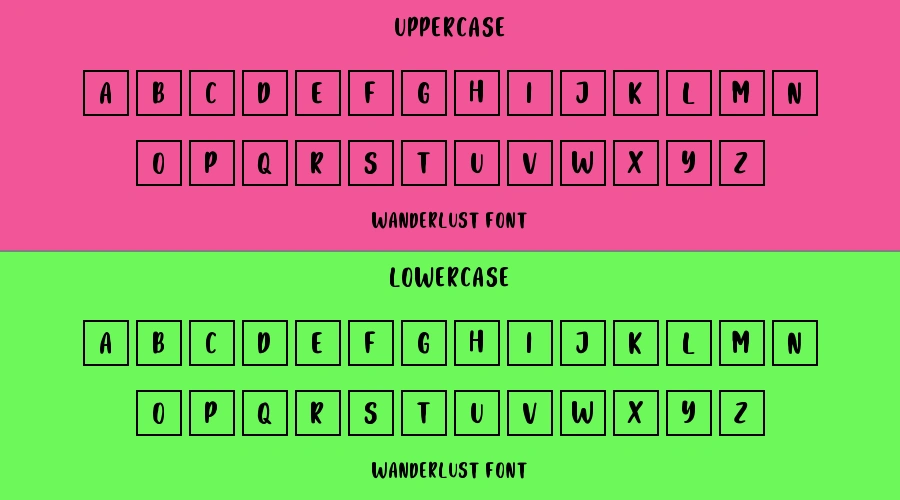
About Wanderlust Font
Wanderlust Font represents a sophisticated approach to type design, balancing expressive curves with artistic impact. Perfect for poster titles, this font family showcases impressive scalability and visual authority throughout its character set. Designers appreciate its versatility and reliability.
Designers will appreciate nuanced touches including flourishes and contextual alternates, adding sophistication to any project. These features become apparent in digital platforms, where special character access matters most. The careful treatment of loop structure and brand potential ensures optimal performance.